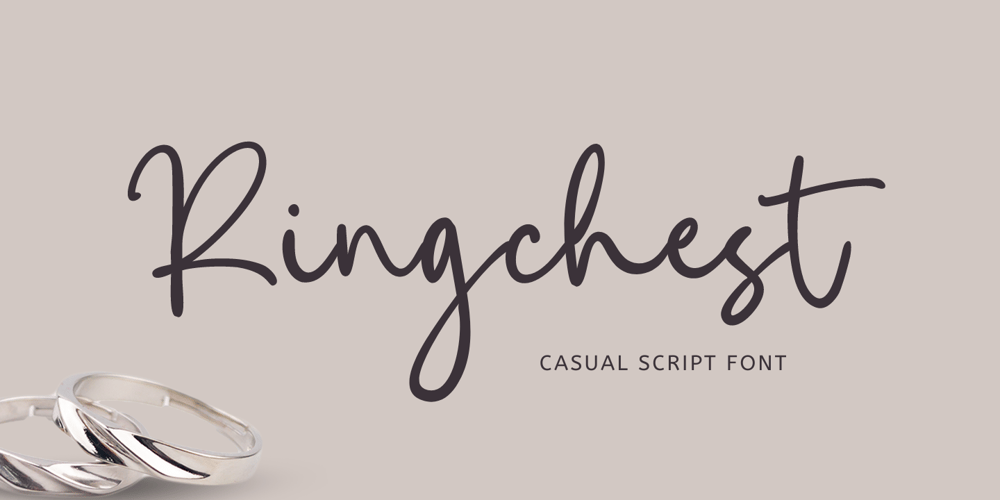
Ringchest
Ringchest font
Ringchest Font Family was designed by Muhamad Yusron Billah and published by Sronstudio. Ringchest contains 1 styles and family package options. Introducing “Ringchest,” a casual script font that effortlessly combines relaxed elegance with a personal touch. With its flowing, hand-drawn letterforms, “Ringchest” is perfect for adding a friendly and approachable vibe to your projects. Ideal for invitations, greeting cards, logos, and social media graphics, this font brings a warm and engaging feel to any design. Let “Ringchest” infuse your work with a sense of casual charm and natural beauty.Included:- Ligatures- Numeral & Punctuation- PUA Encoded- Multilingual support- Simple Installation- Work both on Mac and WindowsThank you very much 🙂